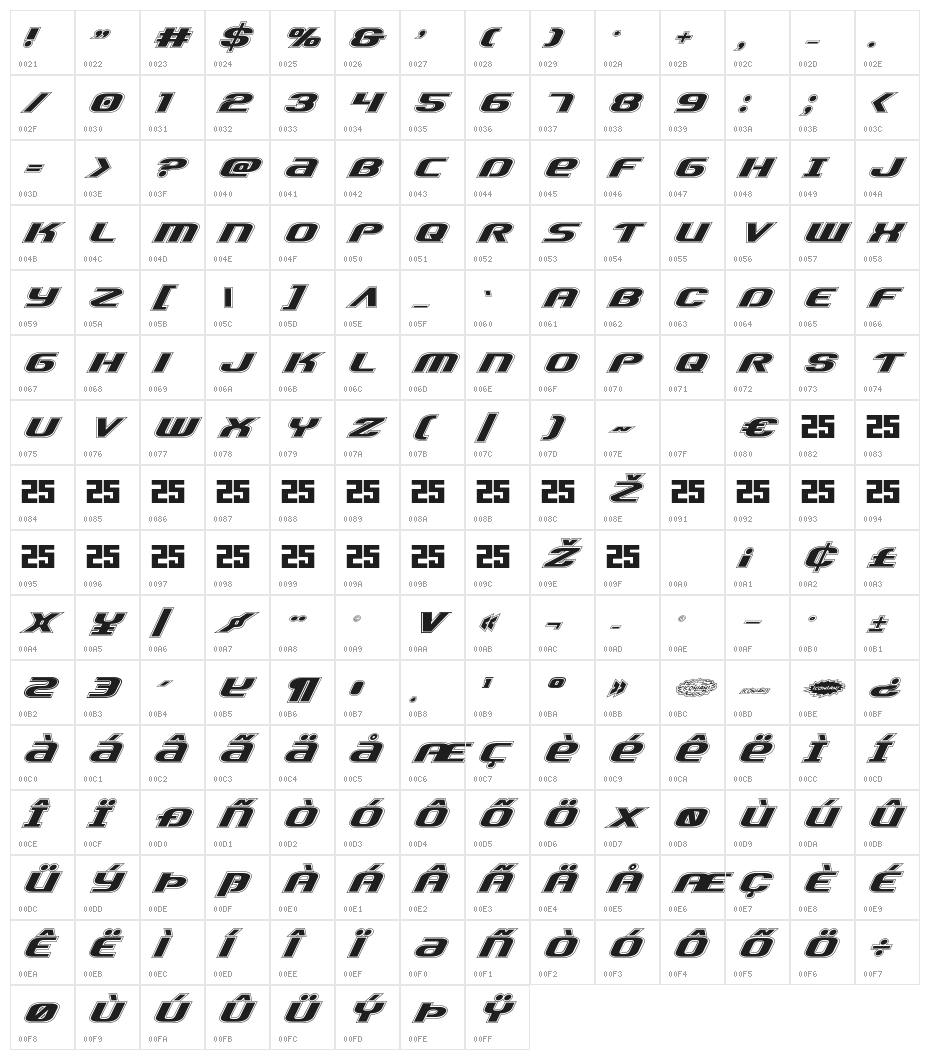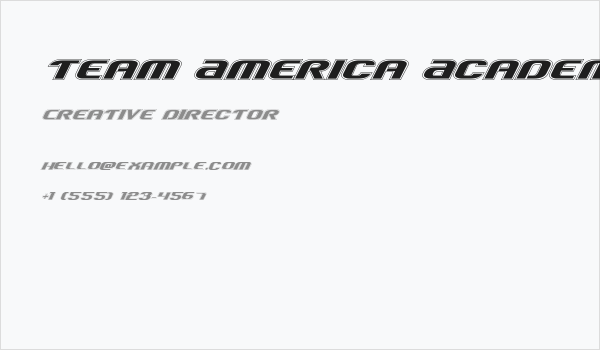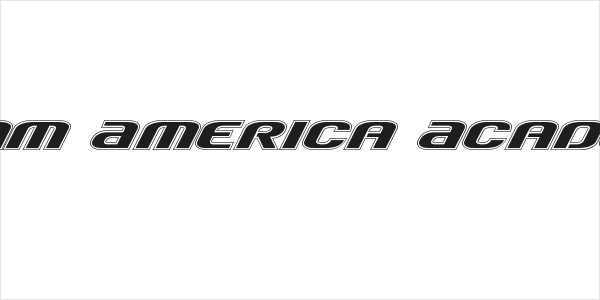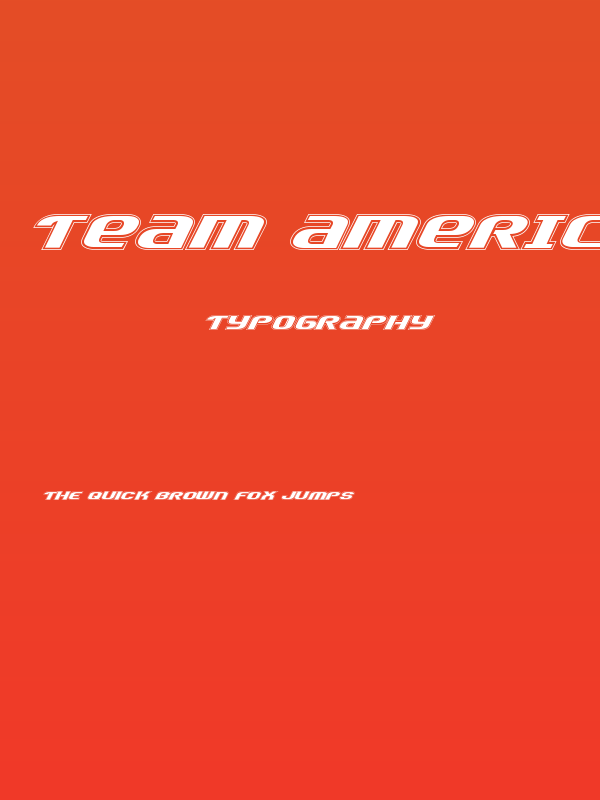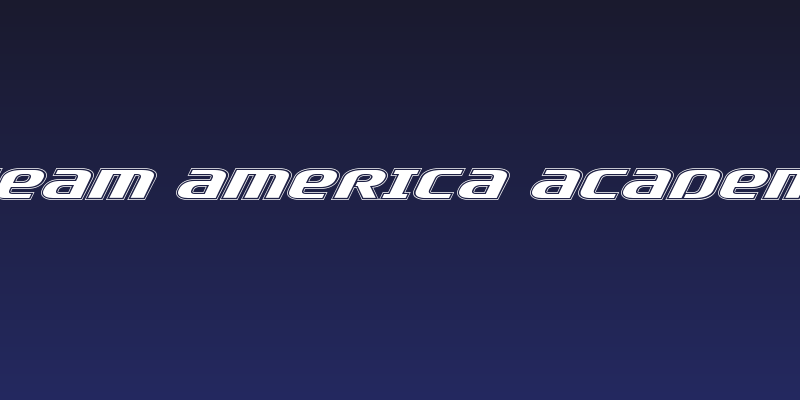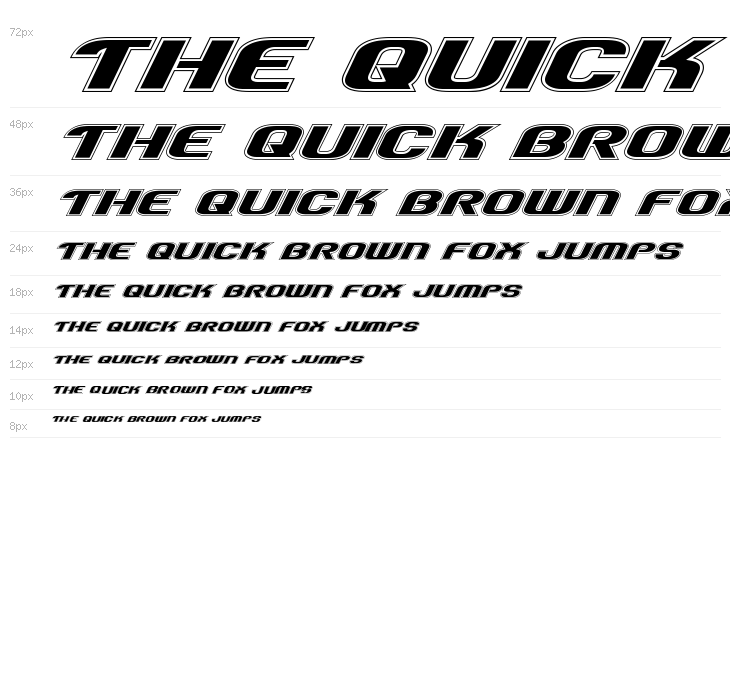
Team America Academy Font
Team America Academy Description
This font features a bold and dynamic style with a distinct outline around each character, giving it a three-dimensional effect. The letters are slightly slanted, adding a sense of motion and energy. The uppercase and lowercase characters maintain a consistent design, with sharp angles and clean lines. The numerals and special characters follow the same stylistic approach, ensuring uniformity across all glyphs. This font's unique appearance makes it stand out, ideal for projects that require a strong visual impact.
| Proposed Projects | Ideal for sports team branding, action movie posters, or dynamic event flyers. |